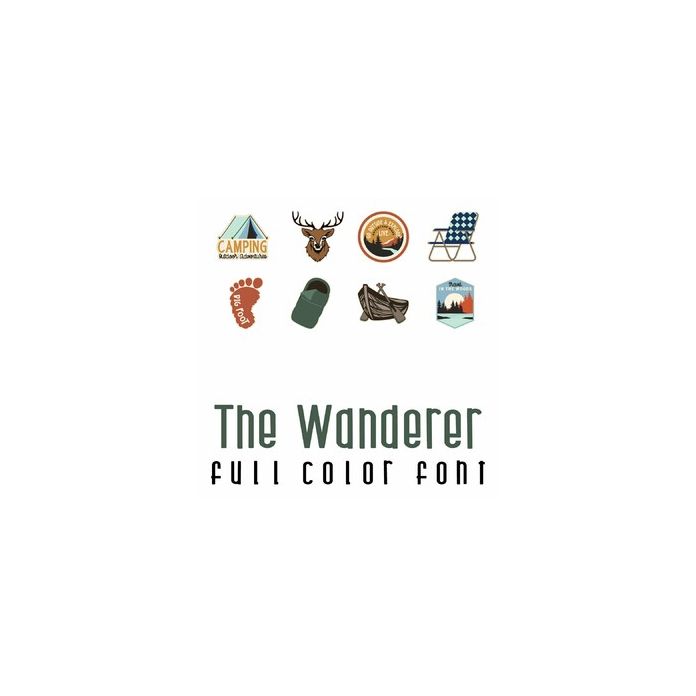
This adorable full-color doodlebat font features 26 outdoorsy sticker-style images perfect for crafts, gifts, planner stickers, decor, cards, scrapbook pages and more!